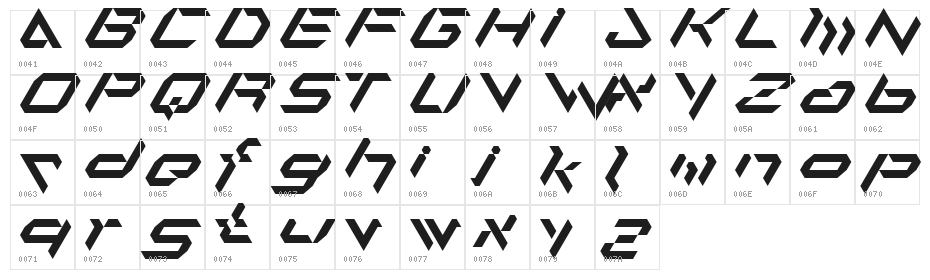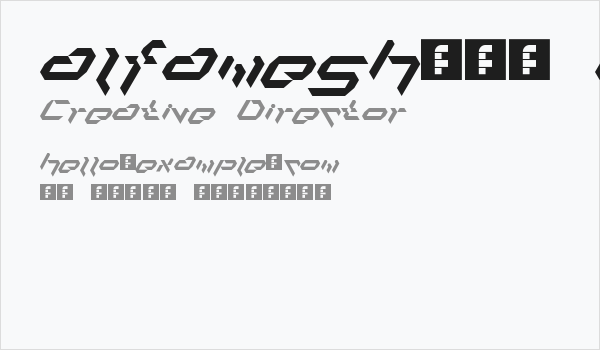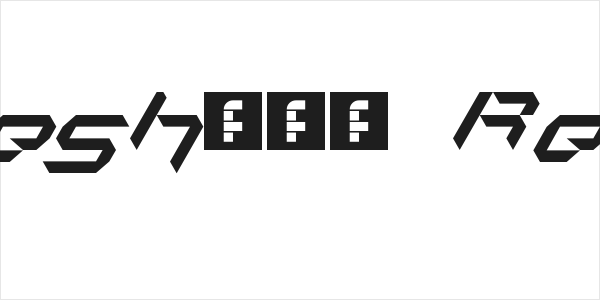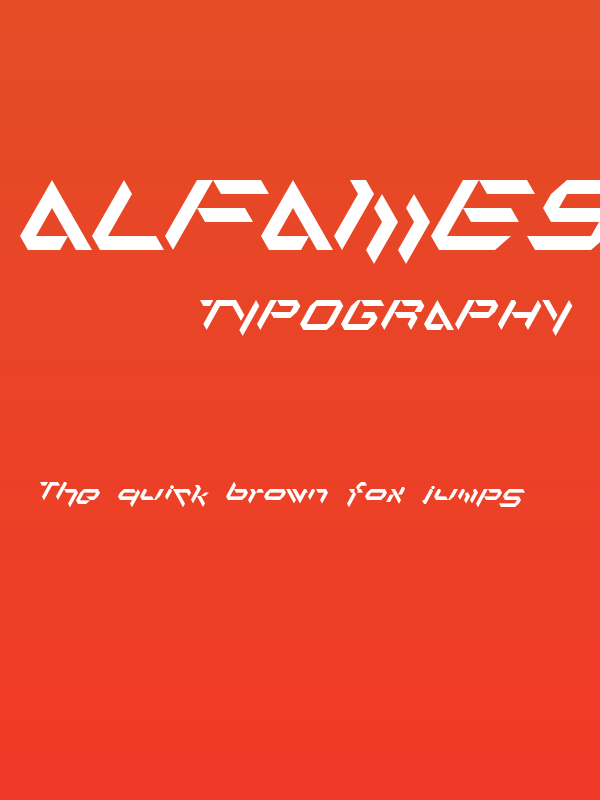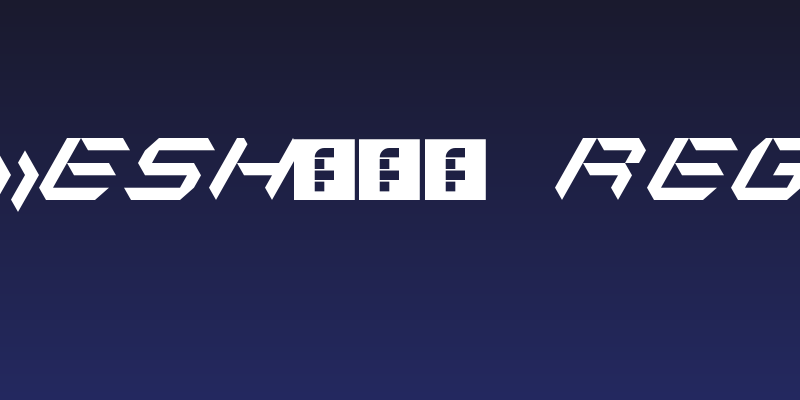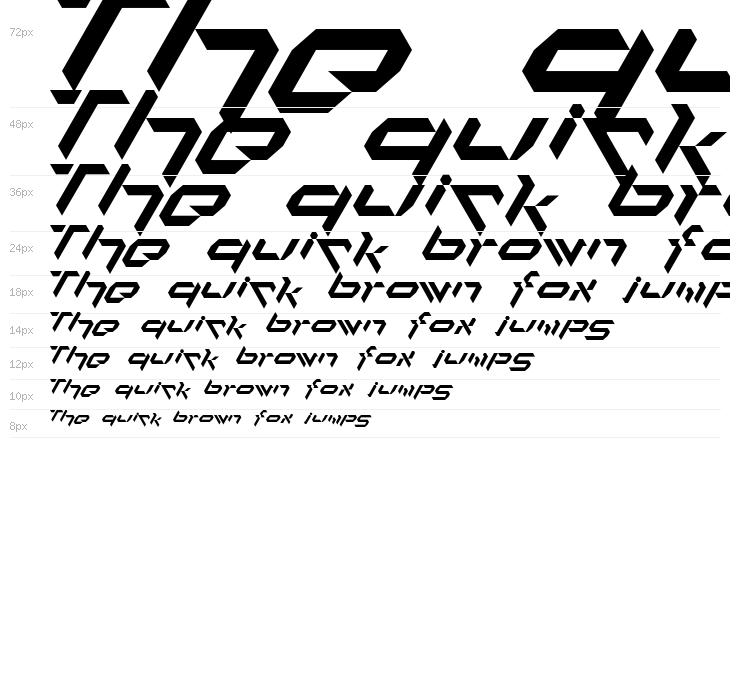
alfamesh001 Regular Font
alfamesh001 Regular Description
This font features a futuristic and angular design, characterized by sharp edges and geometric shapes. The letters are constructed with a consistent slant, giving a sense of motion and dynamism. The uppercase and lowercase characters maintain a uniform style, with distinct cuts and angles that create a cohesive look. The numbers and special characters follow the same design principles, ensuring a seamless integration across all text elements. This font's unique style makes it stand out, offering a modern and edgy aesthetic.
| Proposed Projects | Ideal for sci-fi themed designs, technology branding, video game titles, and modern posters. |